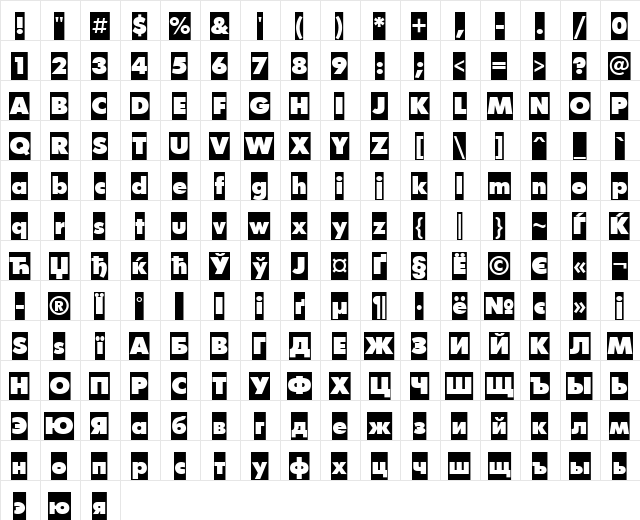
FuturaFuturisXCameoC Regular Font Preview
FuturaFuturisXCameoC Regular
Design Context for FuturaFuturisXCameoC Typeface
FuturaFuturisXCameoC channels digital-age aesthetics through its sharp, structured letterforms — ideal for brands that want to signal innovation.
Pro Tip: Try FuturaFuturisXCameoC with generous letter-spacing in UI labels and navigation — the geometric forms benefit from room to breathe.